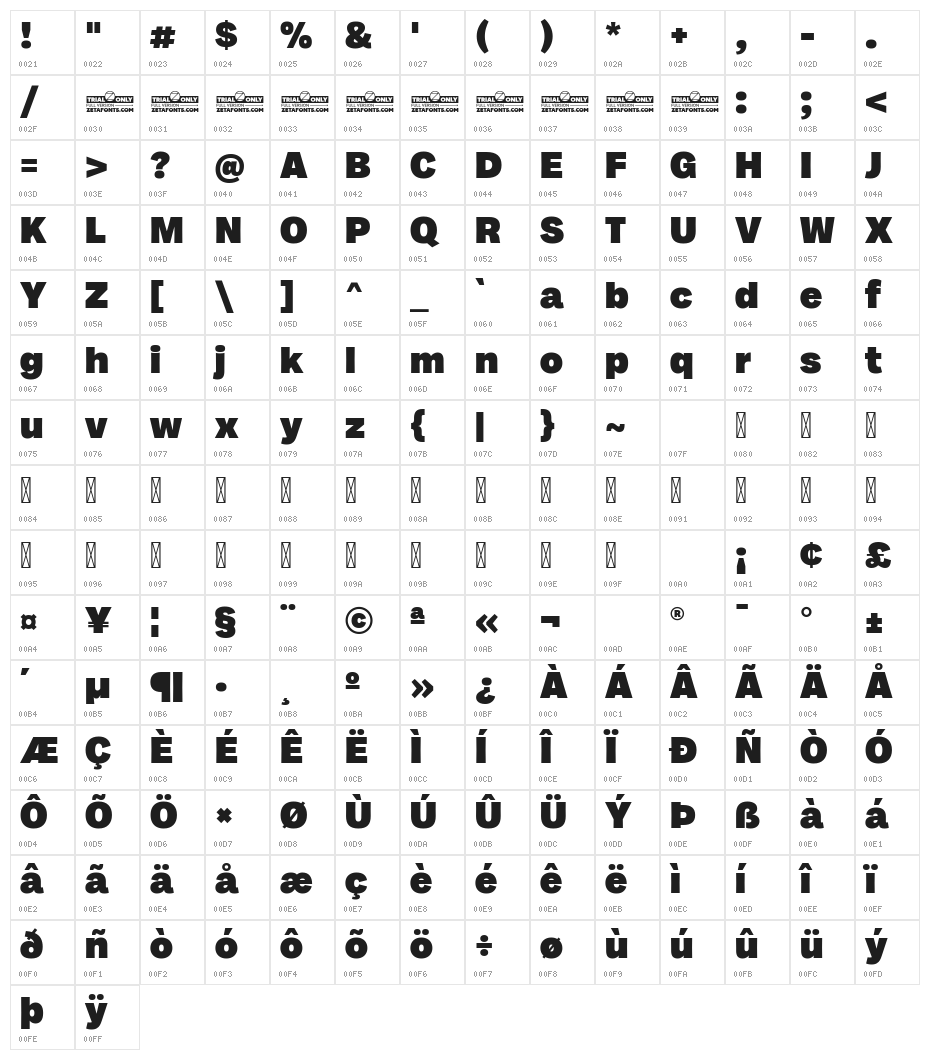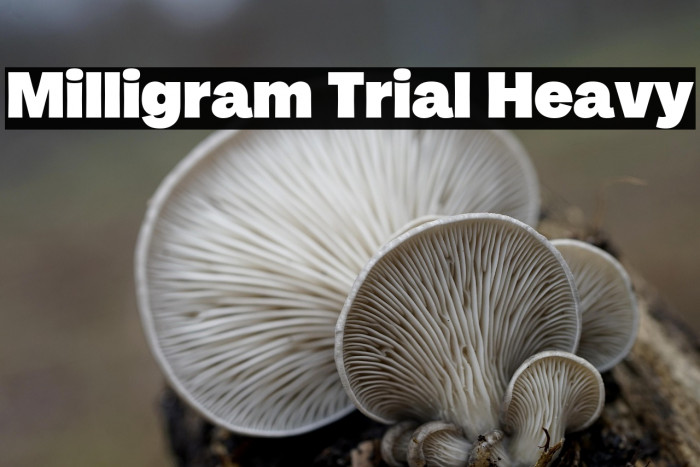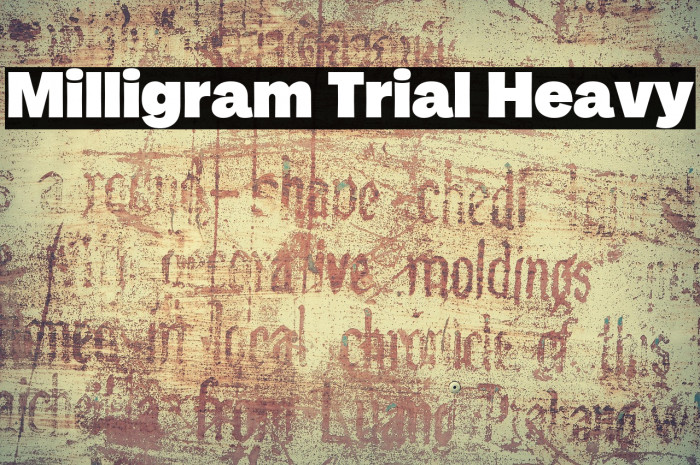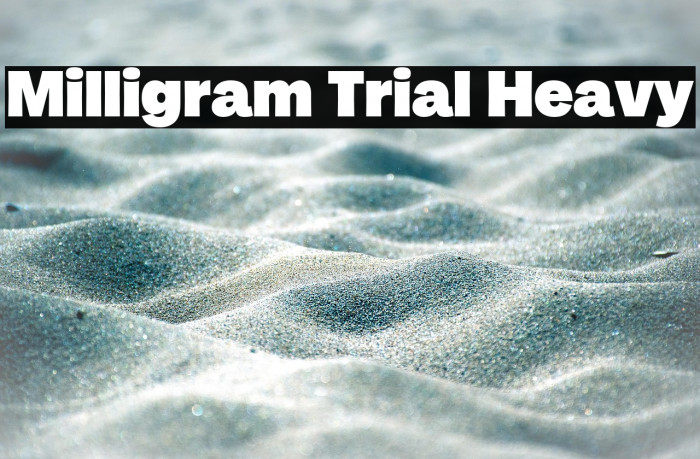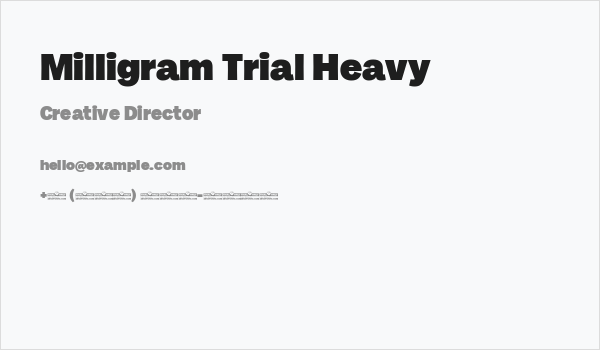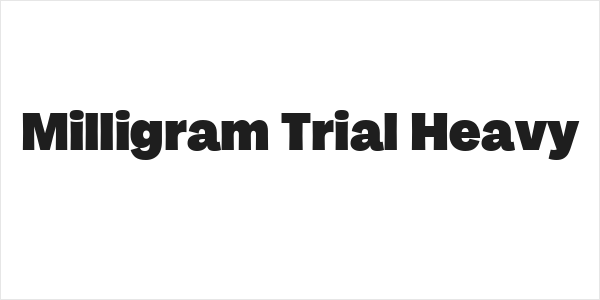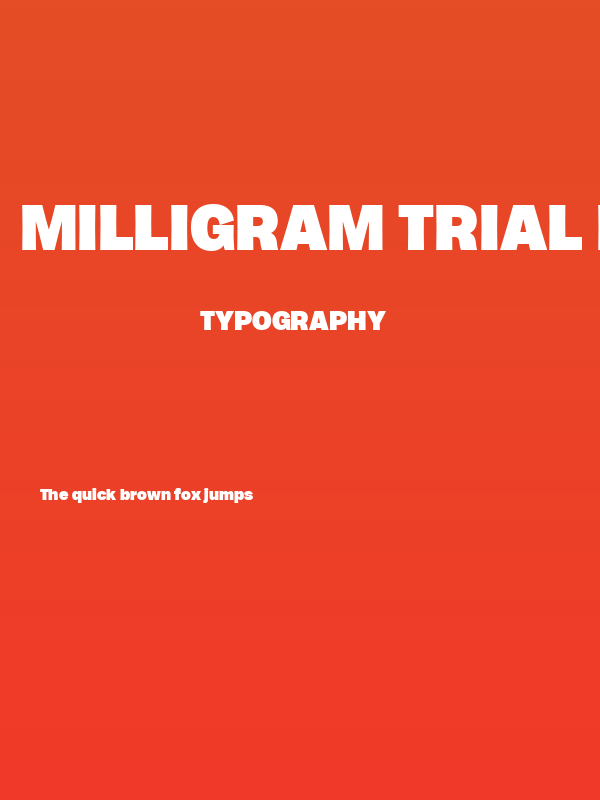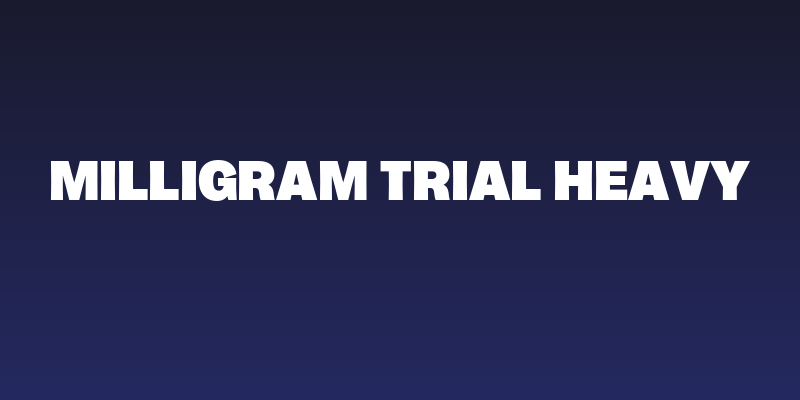
Milligram Trial Heavy Font
Milligram Trial Heavy Description
This font features a bold and impactful design with thick strokes and a strong presence. The uppercase and lowercase letters are uniform in width, creating a cohesive and balanced look. The characters are well-defined with clean lines, making them highly legible. The font includes a full set of uppercase and lowercase letters, numbers, and a variety of special characters. Its heavy weight and solid structure make it ideal for attention-grabbing headlines and titles.
Proposed ProjectsIdeal for use in headlines, posters, branding materials, and any project requiring a strong visual impact.